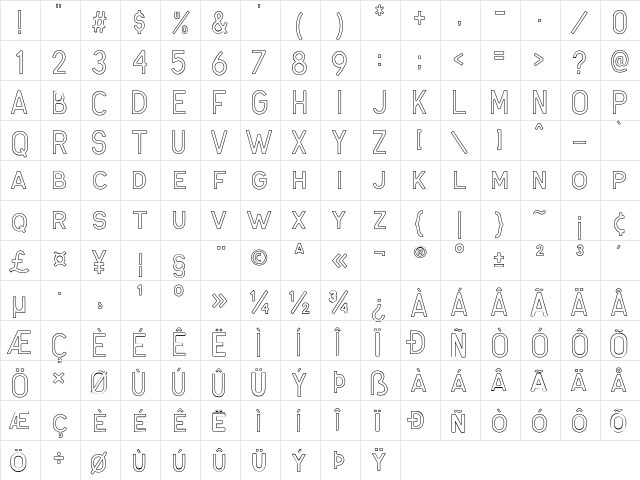
Antone Outline
| Style | Outline |
| Foundry | Letterhend Studio |
| Designer | Letterhend Studio |
Design Context for Antone Typeface
Antone brings ornamental detail and strong personality to headlines and identities, where visual impact matters more than quiet functionality.
Font Pairing: Pair with a clean neutral sans-serif for body copy to let Antone's character lead without overwhelming the composition.
Pro Tip: Use Antone exclusively at display sizes — it was designed to be seen, not read at length. Let a neutral companion handle body copy.